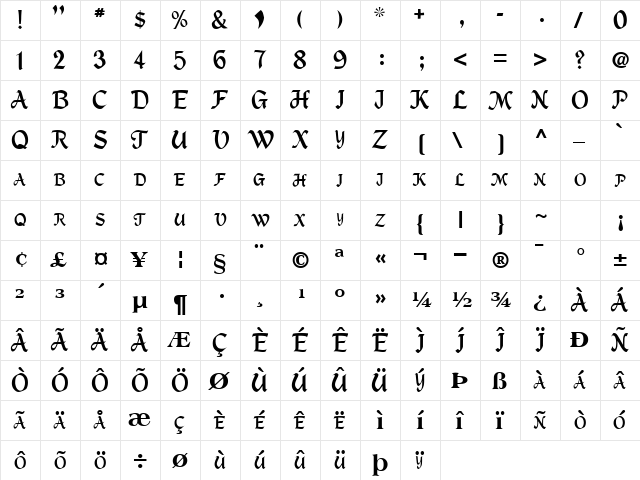
OldBrittaniaScript Regular
Design Context for OldBrittaniaScript Typeface
OldBrittaniaScript flows with the natural rhythm of handwritten lettering, making it ideal for designs that call for warmth and personal expression.
Font Pairing: Combine OldBrittaniaScript with a simple geometric sans for maximum contrast — the tension between flowing curves and clean structure is a classic typographic pairing.
Pro Tip: Use OldBrittaniaScript for short runs of text — names, titles, or taglines. Extended body copy in script faces tires the eye quickly.